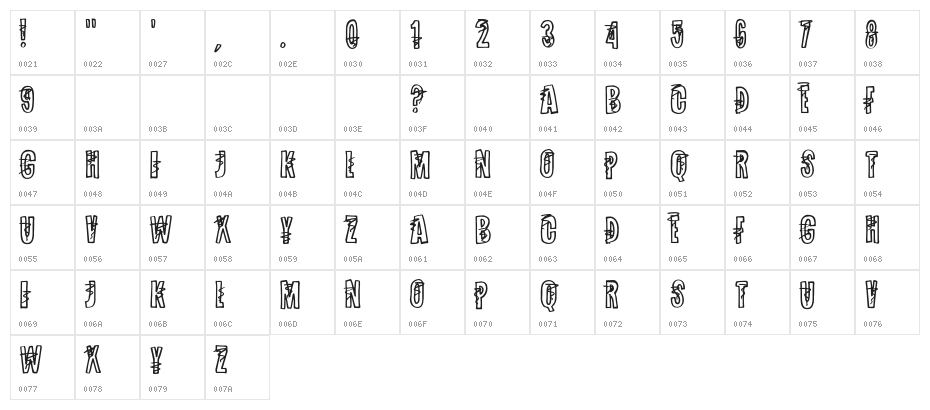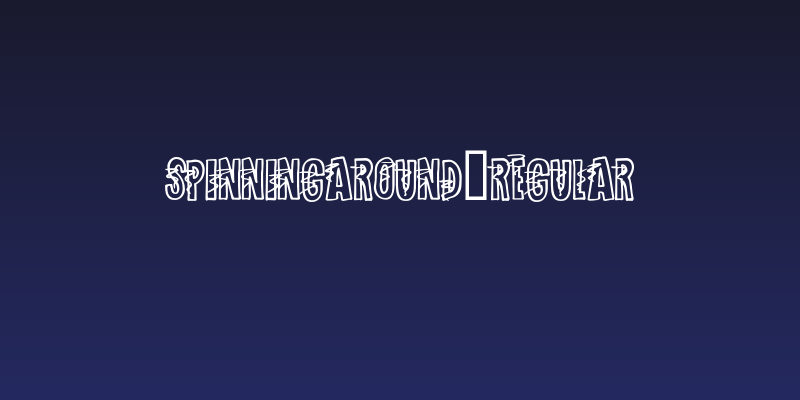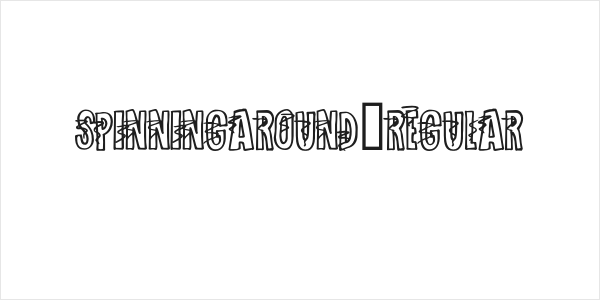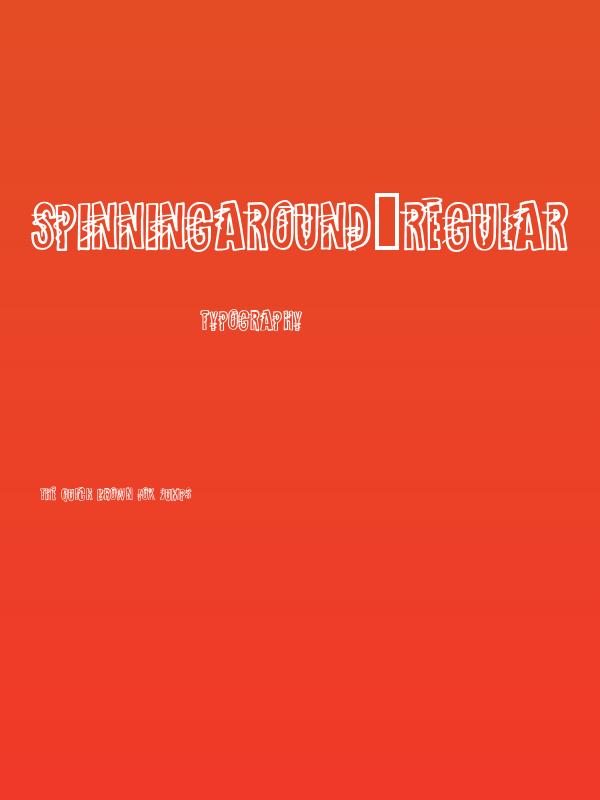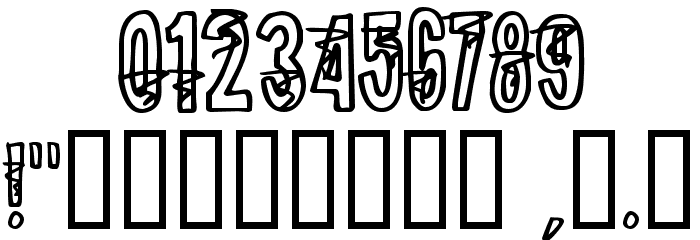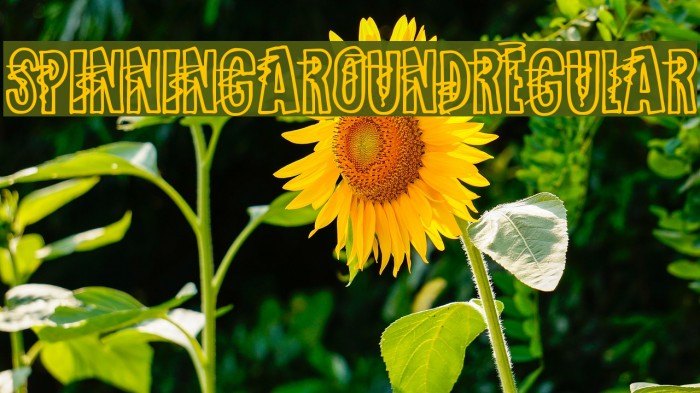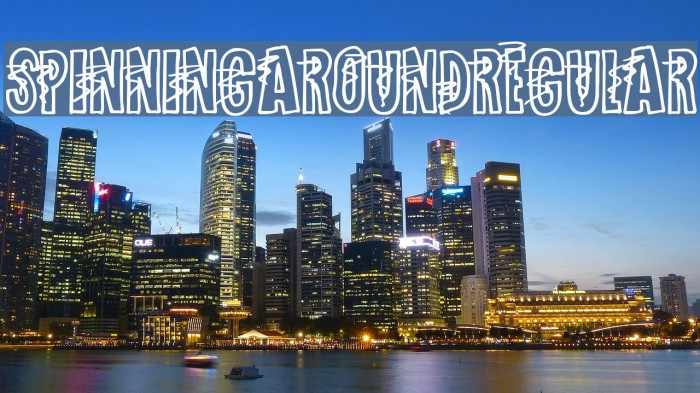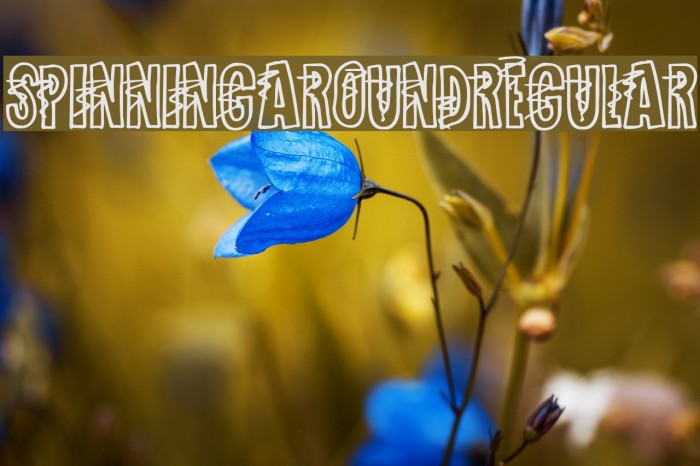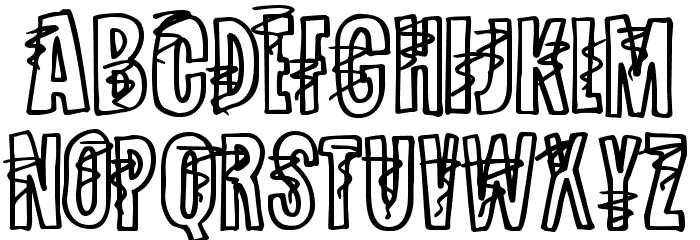
SpinningAround-Regular Font
SpinningAround-Regular Description
This font features a bold, playful design with a unique twist. Each character is outlined with a thick black line, giving it a strong presence. The letters appear as if they are spinning or swirling, adding a dynamic and energetic feel. The uppercase and lowercase letters maintain a consistent style, with the swirling effect applied uniformly across the alphabet. Numbers and special characters follow the same design principles, ensuring a cohesive look. The overall appearance is eye-catching and suitable for creative projects that require a fun and lively typeface.
| Proposed Projects | Ideal for children's books, playful branding, event posters, and creative social media graphics. |